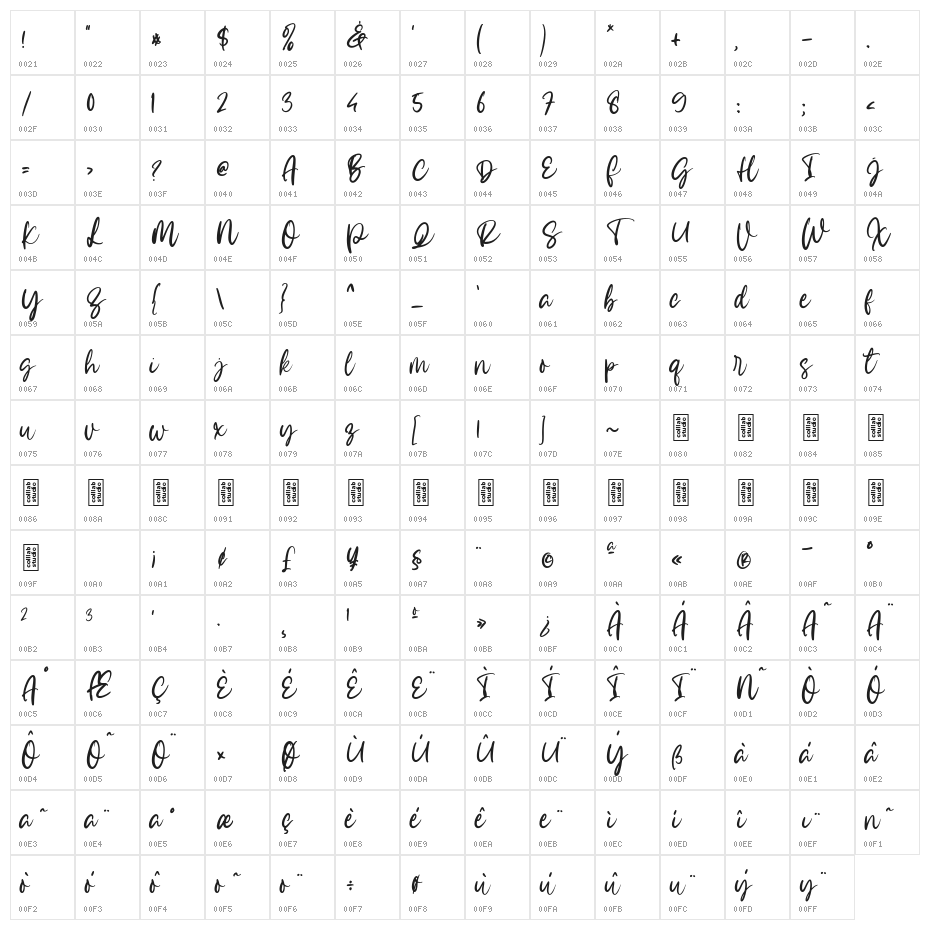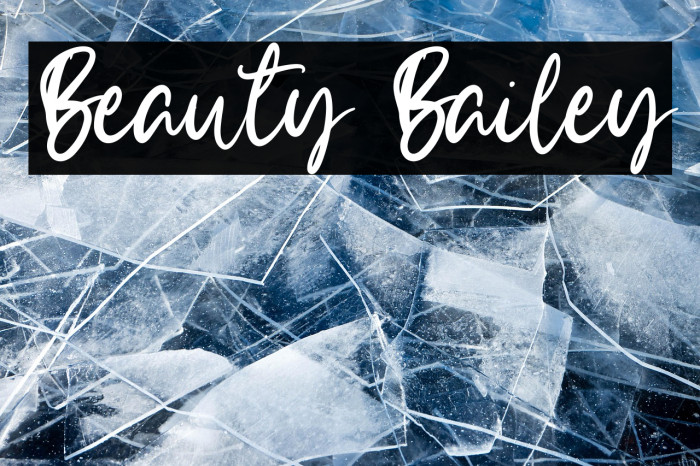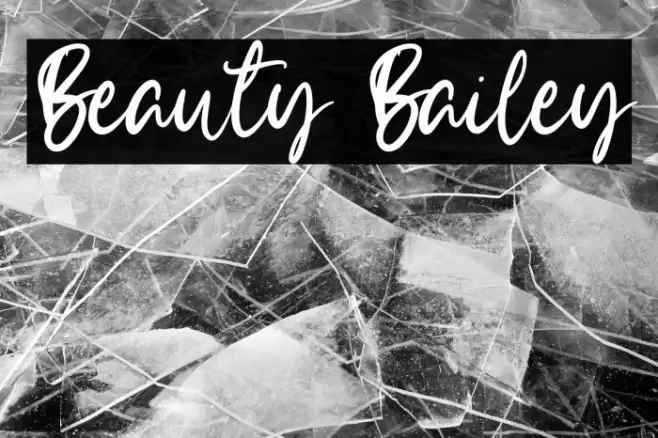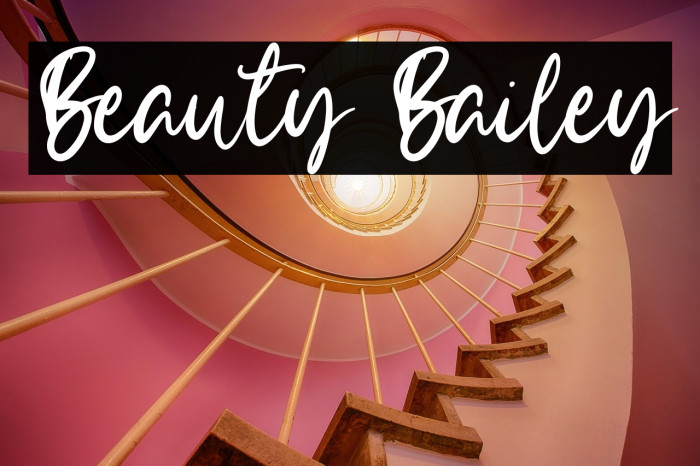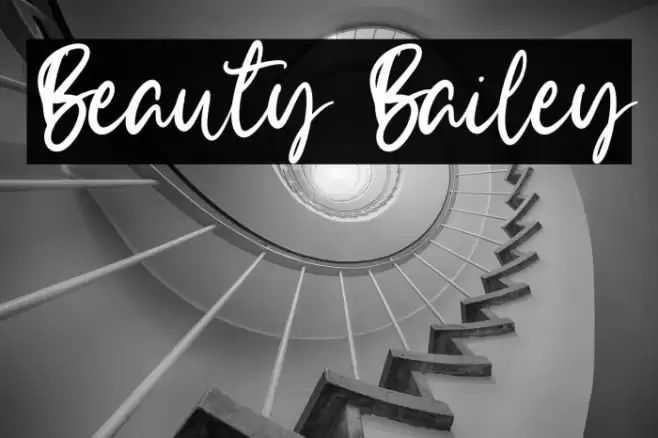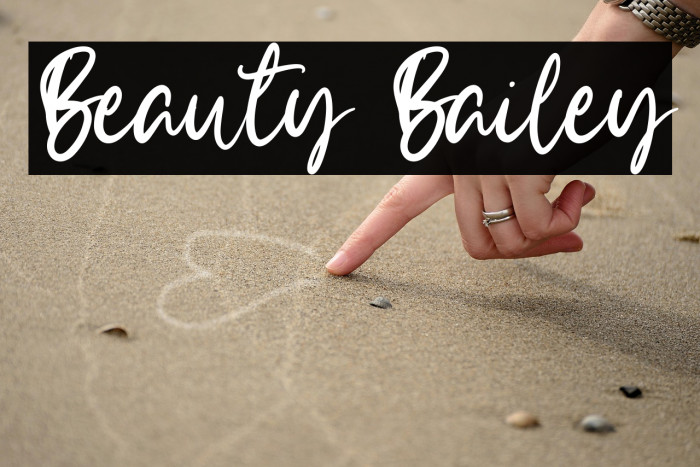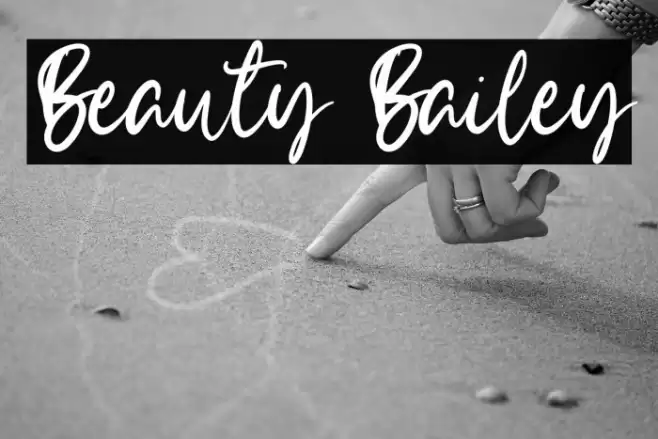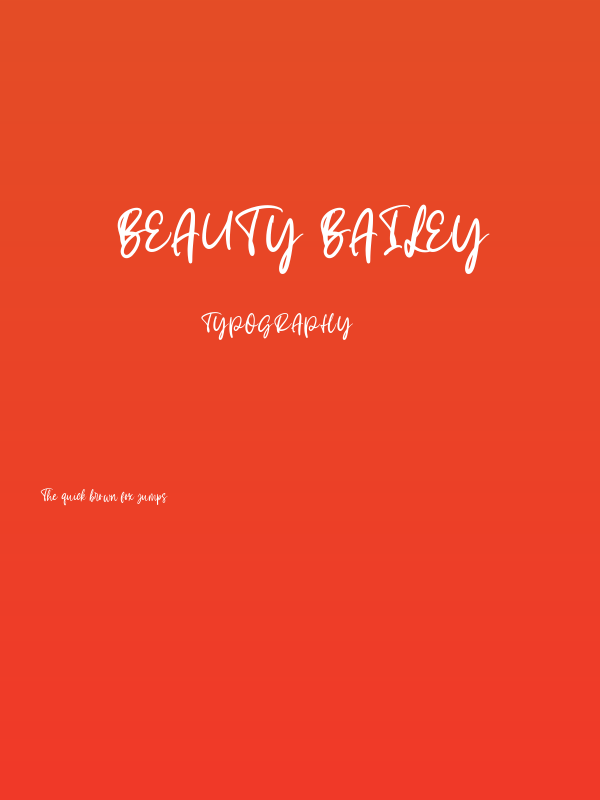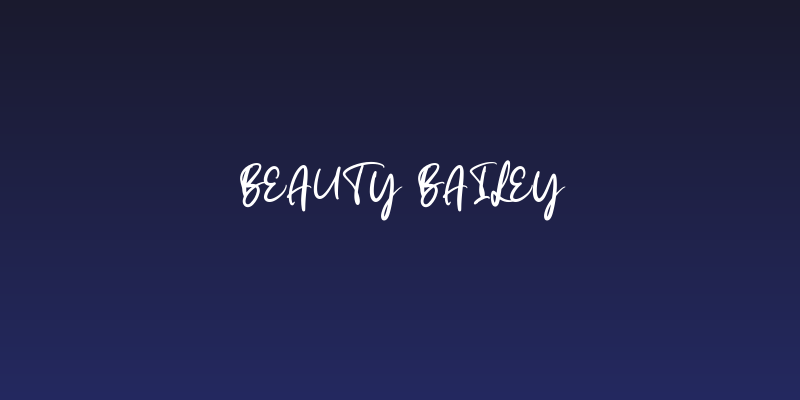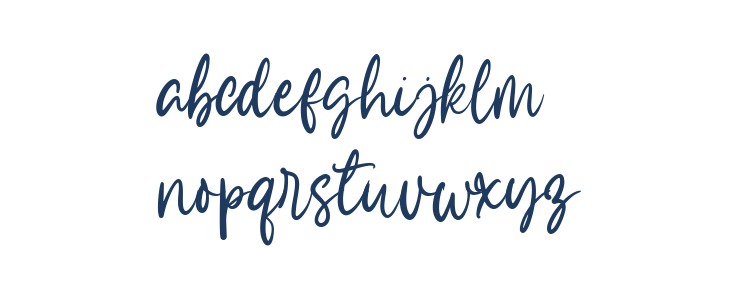
Beauty Bailey Font
Beauty Bailey Description
This font exudes a lively and energetic vibe with its handwritten, cursive style. The letters are fluid and connected, giving it a natural and personal touch. The strokes vary in thickness, adding a dynamic and playful feel. The uppercase letters are bold and expressive, while the lowercase letters maintain a consistent flow. The numbers and special characters are designed to match the overall aesthetic, ensuring a cohesive look. This font is perfect for projects that require a personal, creative, and informal touch.
| Proposed Projects | Ideal for greeting cards, invitations, personal branding, and creative projects. |